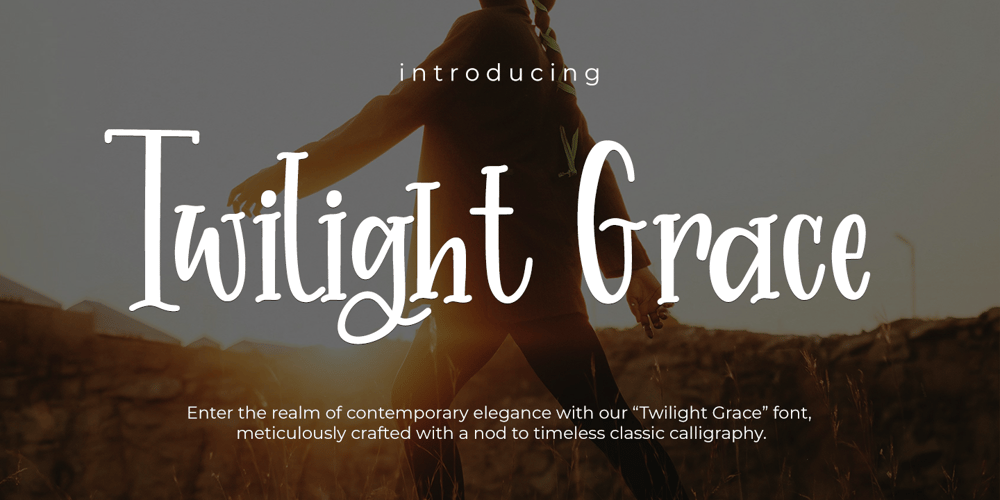
Twilight Grace Font Family was designed by Muhammad Zaini and published by Cocodesign. Twilight Grace contains 1 styles and family package options. Enter the realm of contemporary elegance with our “Twilight Grace” font, meticulously crafted with a nod to timeless classic calligraphy. This trendy handwritten font exhibits an impeccable form, infusing any of your design projects with an air of sophistication and class. “Twilight Grace”, where the essence of tradition intersects with the allure of the modern, is sure to enhance the aesthetic appeal of any of your artistic endeavors.